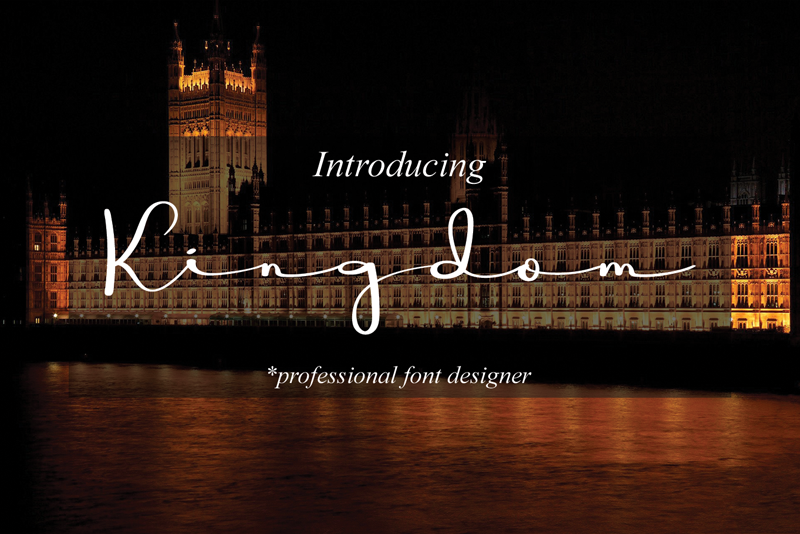
Preview and download Kingdom Font. Created by Luluk Surotul in Script Handwritten styles with Free for personal use license.
Font name: | Kingdom |
Author: | Luluk Surotul |
Kingdom is a beautiful and refined script font. It has a classy, elegant and modern look that can be used for logos, branding, invitations, stationery, wedding designs, social media posts, and much more! Attention : Kingdom handwriting Font is prohibited to use this font for commercial purposes or for profit without the permission of the author/admin, without being known to use this font without permission, will be subject to sanctions 5x the specified price. This font is used only for demos (Demo license) If you want to use this font for commercial use please contact email: erikluluk0@gmail.com or click the link below: https://www.creativefabrica.com/product/kingdom-5/ref/761303/ If you want to see more other fonts, please click:https://www.creativefabrica.com/designer/erik-studio/ref/745146/ Any donations are very appreciated. Paypal account for donation: https://paypal.me/eriksupriyant thanks. |